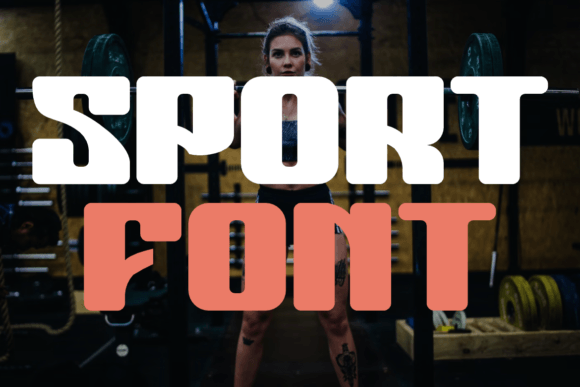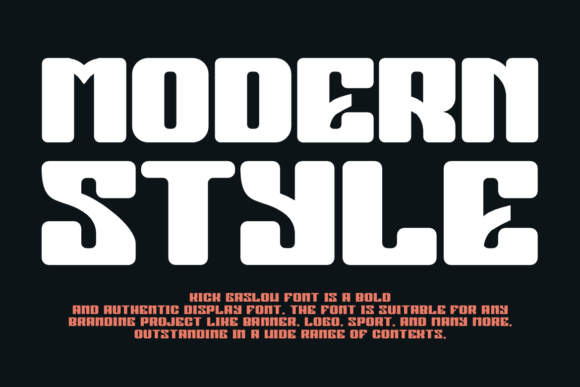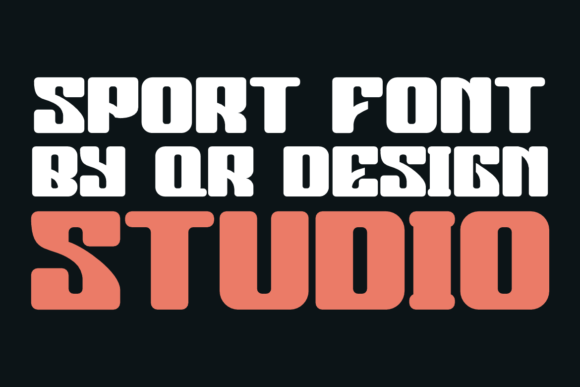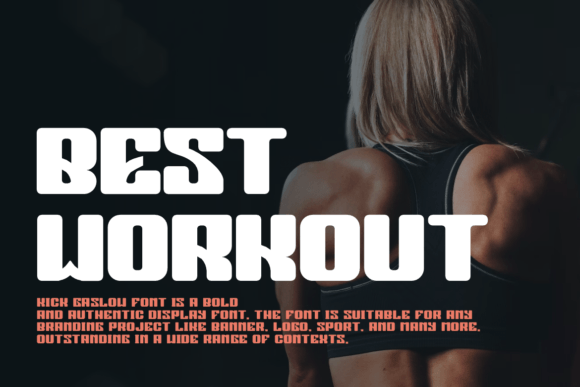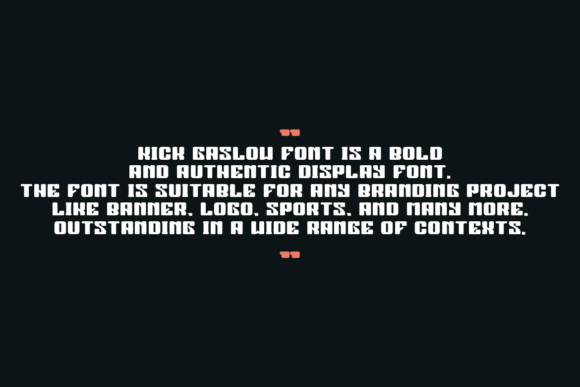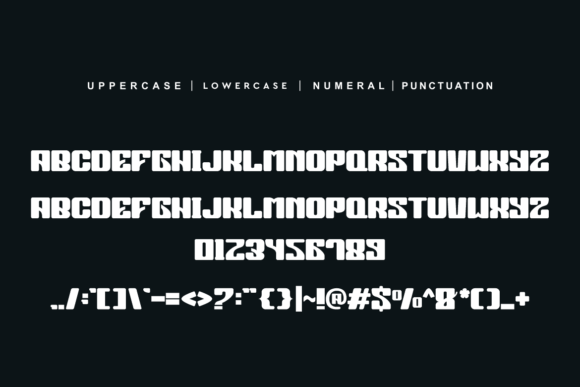
Introduction to Kick Gaslow Font
As a designer, you know the thrill of that perfect creative moment when all the pieces come together. You’re brainstorming ideas for a new project, and suddenly, a font catches your eye. It’s bold, it’s authentic, and it’s exactly what you need to elevate your design. For many designers, that font is the Kick Gaslow Font – a high-quality display font that’s perfect for any branding project, from logos to sports teams.
Whether you’re working on a high-profile branding project or a personal design challenge, the Kick Gaslow Font is a valuable asset that’s sure to take your work to the next level. Its versatility and high quality make it an essential design resource that’s worth exploring further.
Key Features of Kick Gaslow Font
- Unique, modern font style with a transparent background, perfect for graphic designers and digital artists
- Perfect for digital projects, print materials, and web design, adding a touch of sophistication and style
Honest Review: Kick Gaslow Font
I recently stumbled upon the Kick Gaslow Font, and I must say it’s a great addition to any design resource library. As a designer, I appreciate fonts that are both stylish and versatile, and this one delivers.
- ✨ High-quality design that looks great in various creative projects, from posters to social media graphics.
- ✨ Easy to read, even at smaller font sizes.
- ✨ Transparent background, making it easy to use with any design background.
That being said, there are a few limitations to consider:
- ⚠️ Limited font styles available for free download, which may not be suitable for complex design projects.
Tips for Getting the Most Out of Kick Gaslow Font
To maximize the effectiveness of the Kick Gaslow Font, use it in combination with other design elements, such as images and colors, to create a visually appealing design. Experiment with different font sizes, styles, and arrangements to achieve the desired look.
The Kick Gaslow Font is ideal for various creative projects, including:
Alternatives to Kick Gaslow Font
1. Great Vibes
Great Vibes is a beautiful, handwritten font perfect for creative projects that require a touch of elegance. It’s ideal for use in logos, headings, and other design elements where a high-quality, handwritten font is needed. Great Vibes is available for free download, making it an excellent alternative to Kick Gaslow Font.
Compared to Kick Gaslow Font, Great Vibes has a more refined and sophisticated look, making it suitable for a wider range of design projects.
2. Pacifico
Pacifico is a stunning, modern script font that’s perfect for designs that require a high level of sophistication. It’s ideal for use in headings, titles, and other design elements where a high-quality, script font is needed. Pacifico is available for free download, making it a great alternative to Kick Gaslow Font.
Compared to Kick Gaslow Font, Pacifico has a more refined and elegant look, making it suitable for a wider range of design projects.